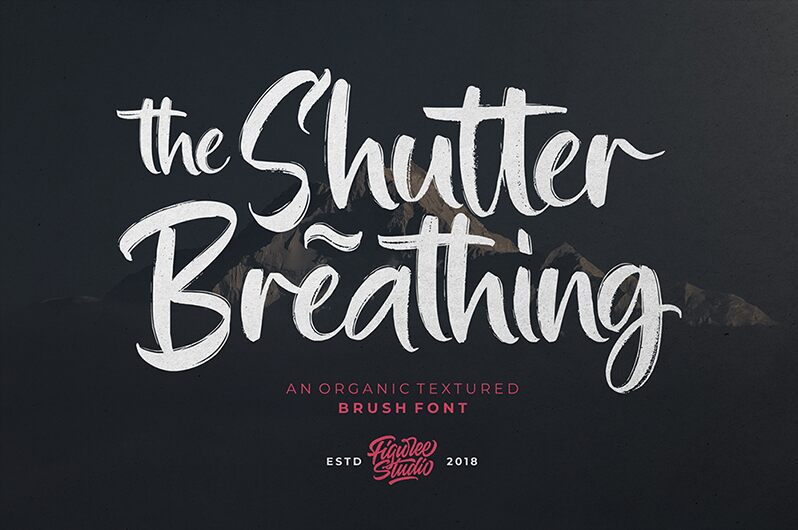
Shutter Breathing
Shutter Breathing font is a free brush font designed by Figuree Studio with an expressive handwritten style. Its modern, artistic flair creates a naturally authentic script accompanied by the casual elegance of its rough brush stroke finishing. Playful yet well-balanced characters make it perfect for any occasion you want to focus all eyes on the text.
Elegant branding projects, logo designs, magazines, product packaging, invitation cards, handwritten quotes, posters and printings are charmingly elevated with this typeface. It’s equally stunning within apparel designs and fashion headings or as a unique website and social media font.